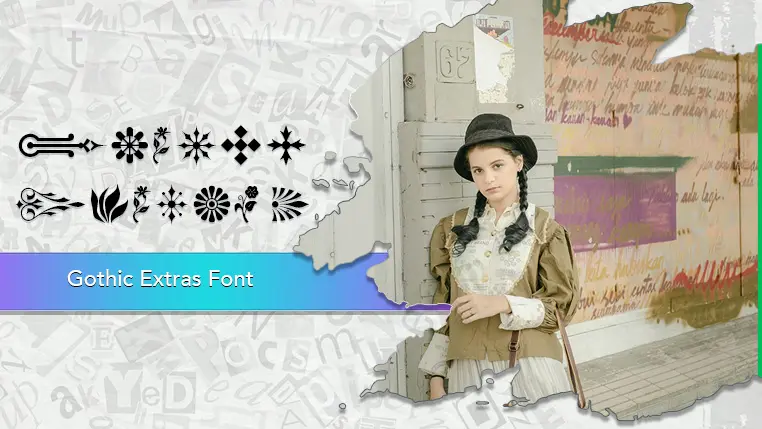
The Gothic Extras font family may be ideal for you if you enjoy working on an artistic design project. The lively, expressive look of this typeface, which was created by Dharma Type, makes it ideal for Logos and Branding. It provides a variety of vintage-inspired borders and decorative frames that can be used to enclose text or images. You can use its symbols as dividers between sections of text, or as standalone decorative ornaments to fill space and add visual interest. It's great for adding a decorative touch to event posters, product labels, and any print design that benefits from a detailed, old-fashioned look. and other light-hearted visual projects.
A, B, C, D, E are the five primary font styles of the Gothic Extras font family. You may build dynamic, visually appealing text layouts with the distinct flair that each style offers. With crisp, readable lines and a relaxed tone.